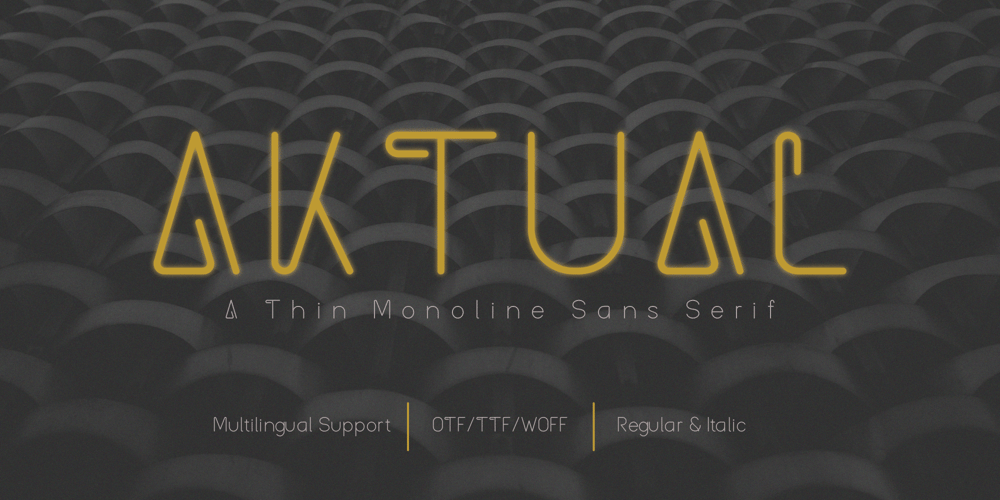
Aktual Font Family was designed by Dede Nugraha and published by Denustudio. Aktual contains 2 styles and family package options. Aktual | Thin Monoline Sans Serif, from Denustudios, suitable for any projects such as: logos, branding projects, homeware designs, product packaging, mugs, quotes, posters, shopping bags, t-shirts, book covers, name card, invitation cards, greeting cards, label, photography, watermark, special events, and all your other lovely projects that need a Thin Monoline Sans Serif taste.===========================================================================What’s Included : Regular and Italic Web Font Standard glyphs Alternate and Ligature Works on PC & Mac Simple installations Accessible in the Adobe Illustrator, Adobe Photoshop, Adobe InDesign, even work on Microsoft Word and Other Software. PUA Encoded Characters – Fully accessible without additional design software. Fonts include multilingual support Hope you enjoy with our font!